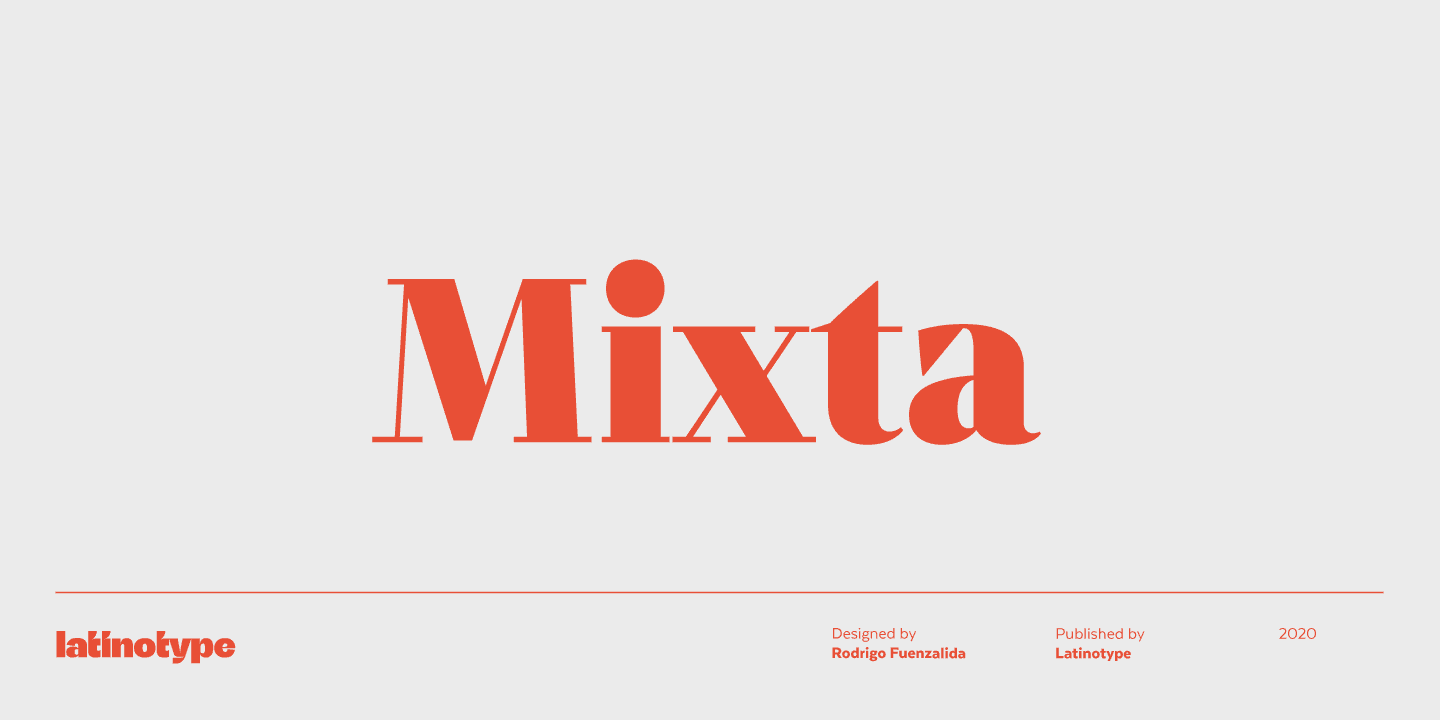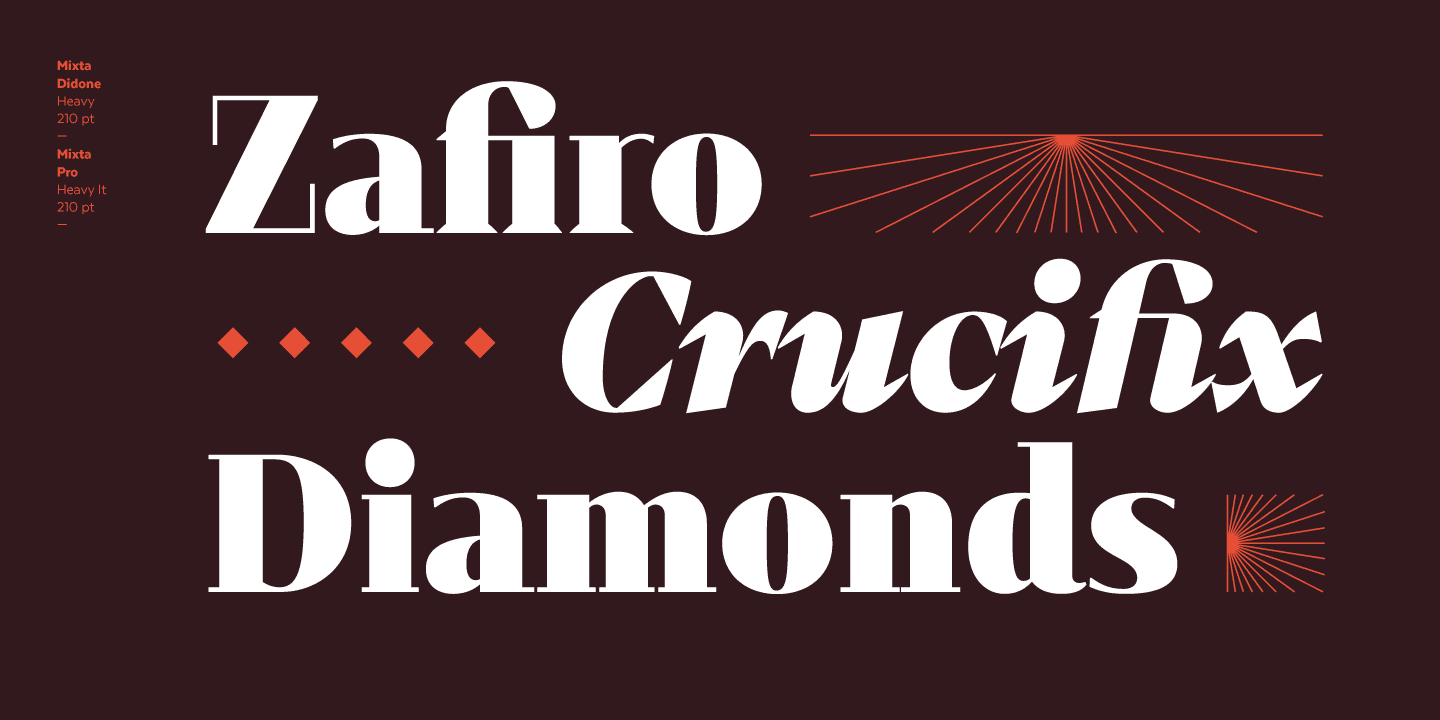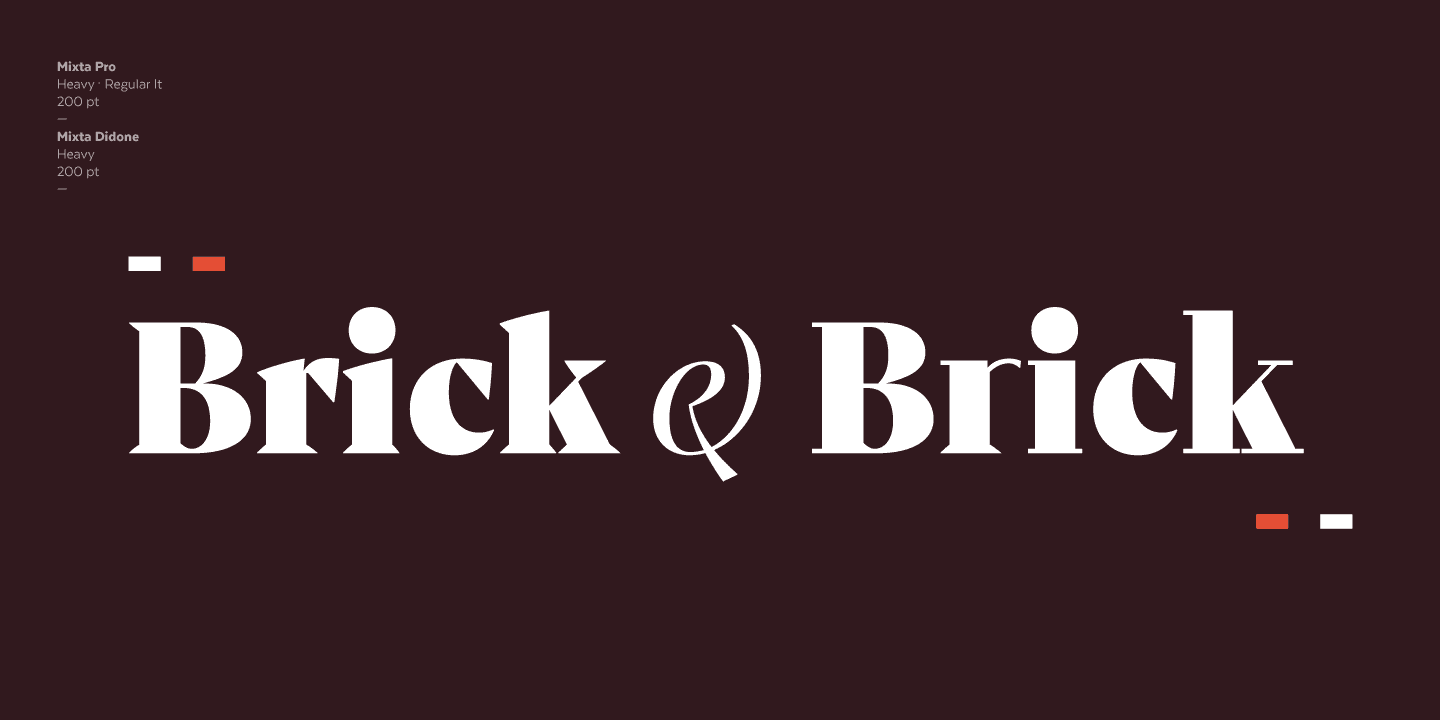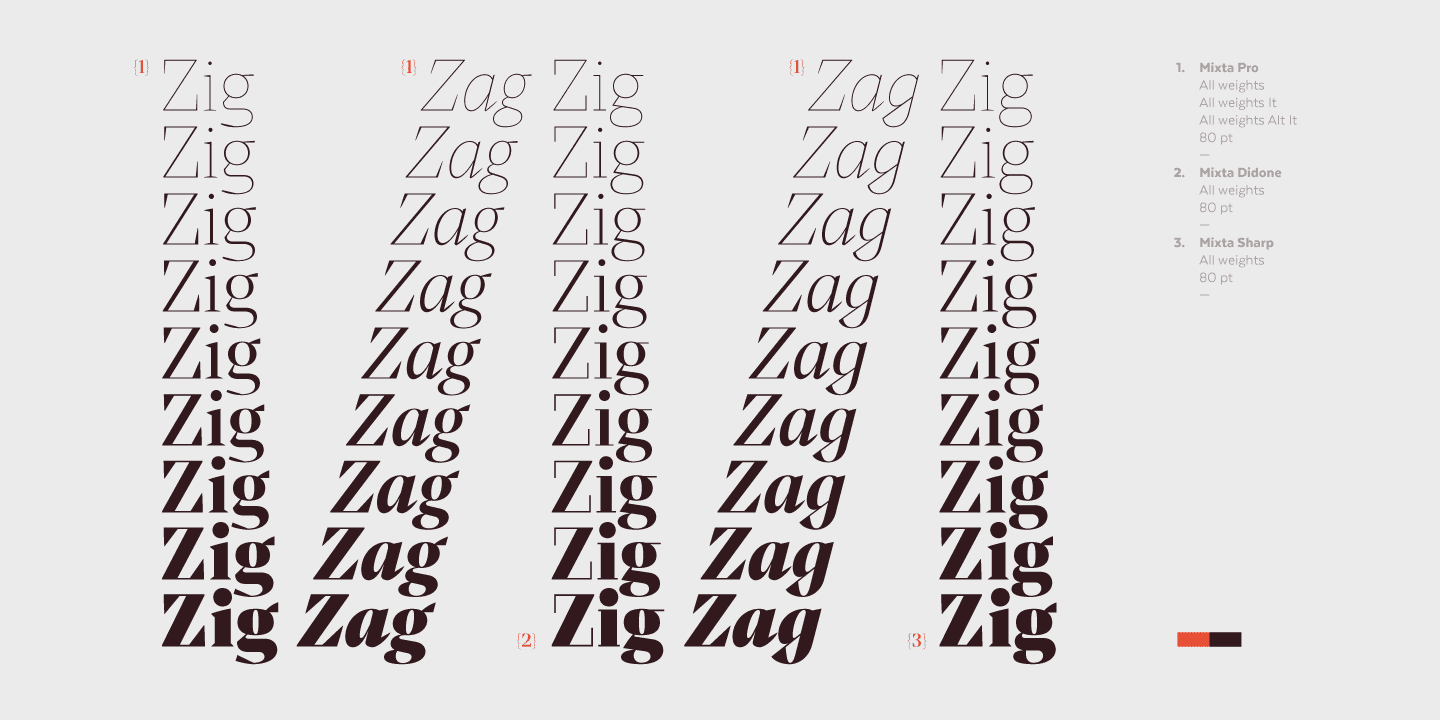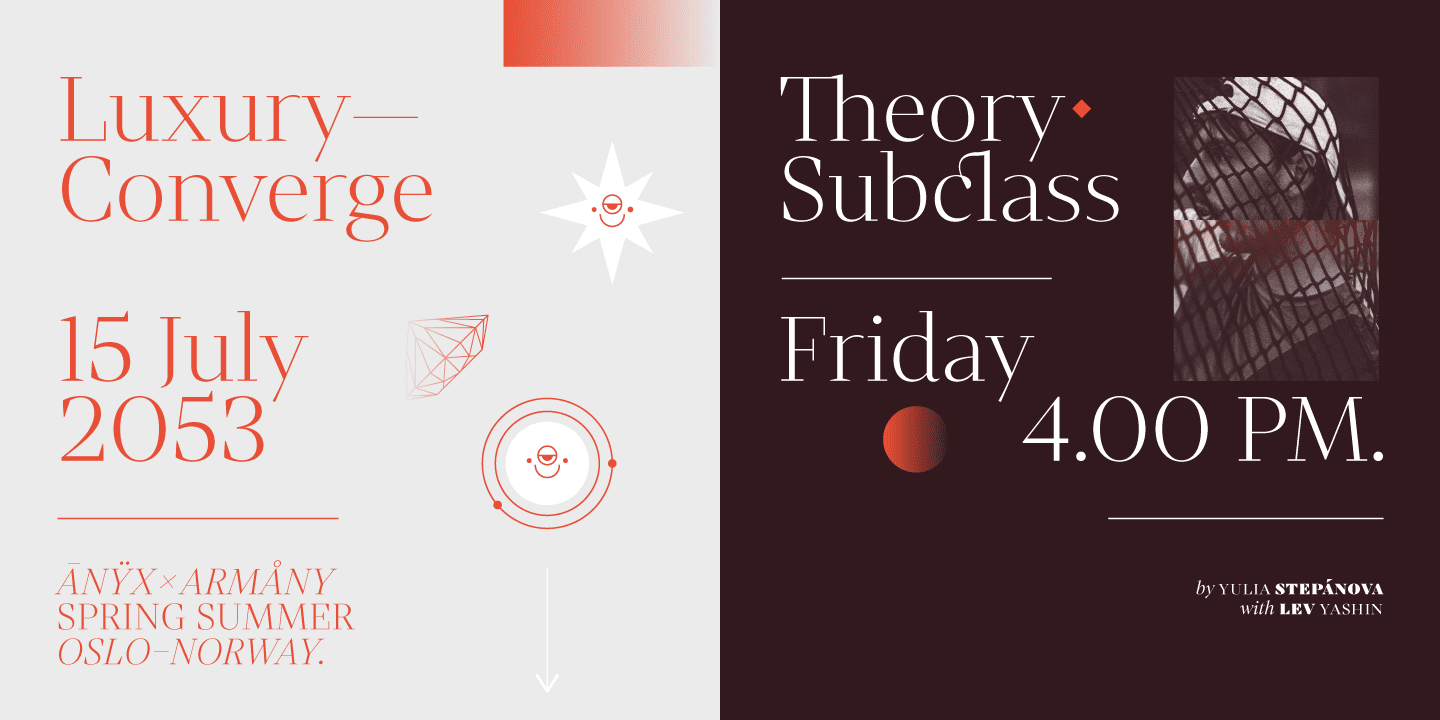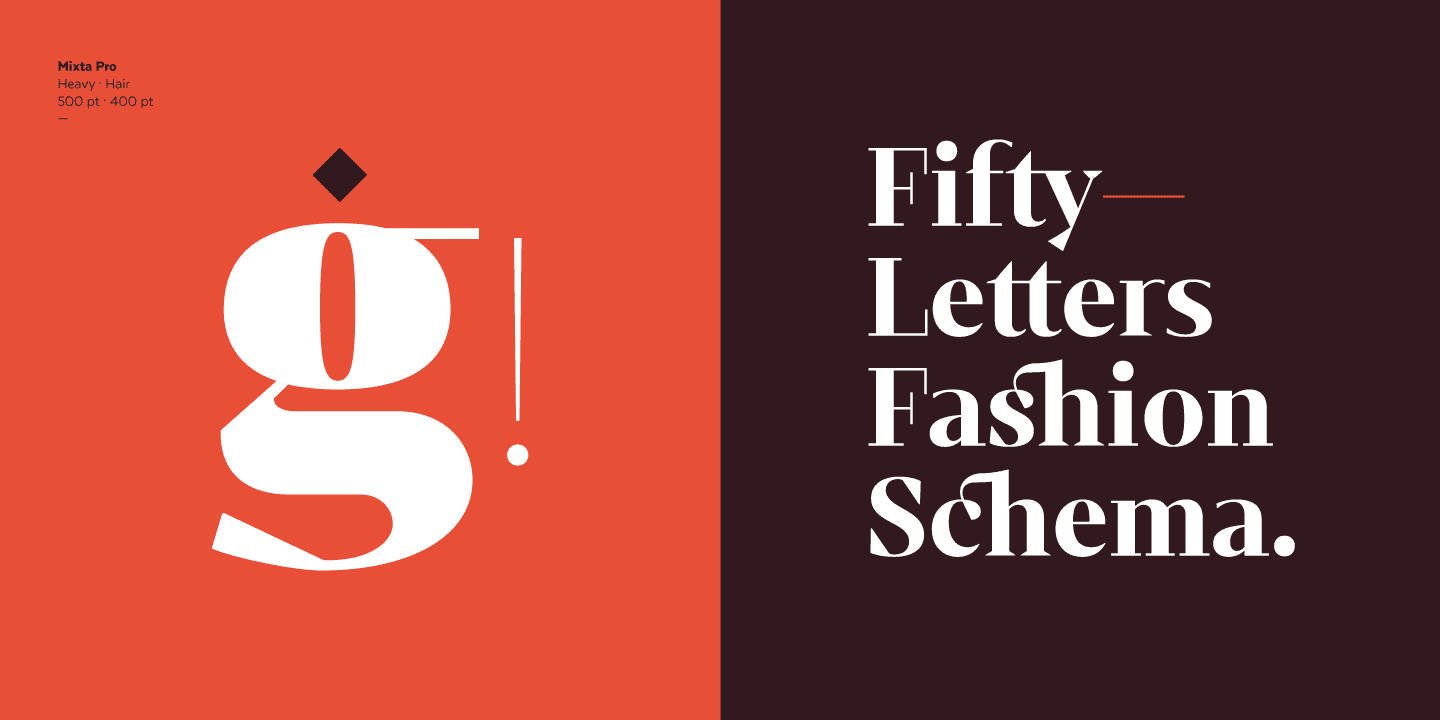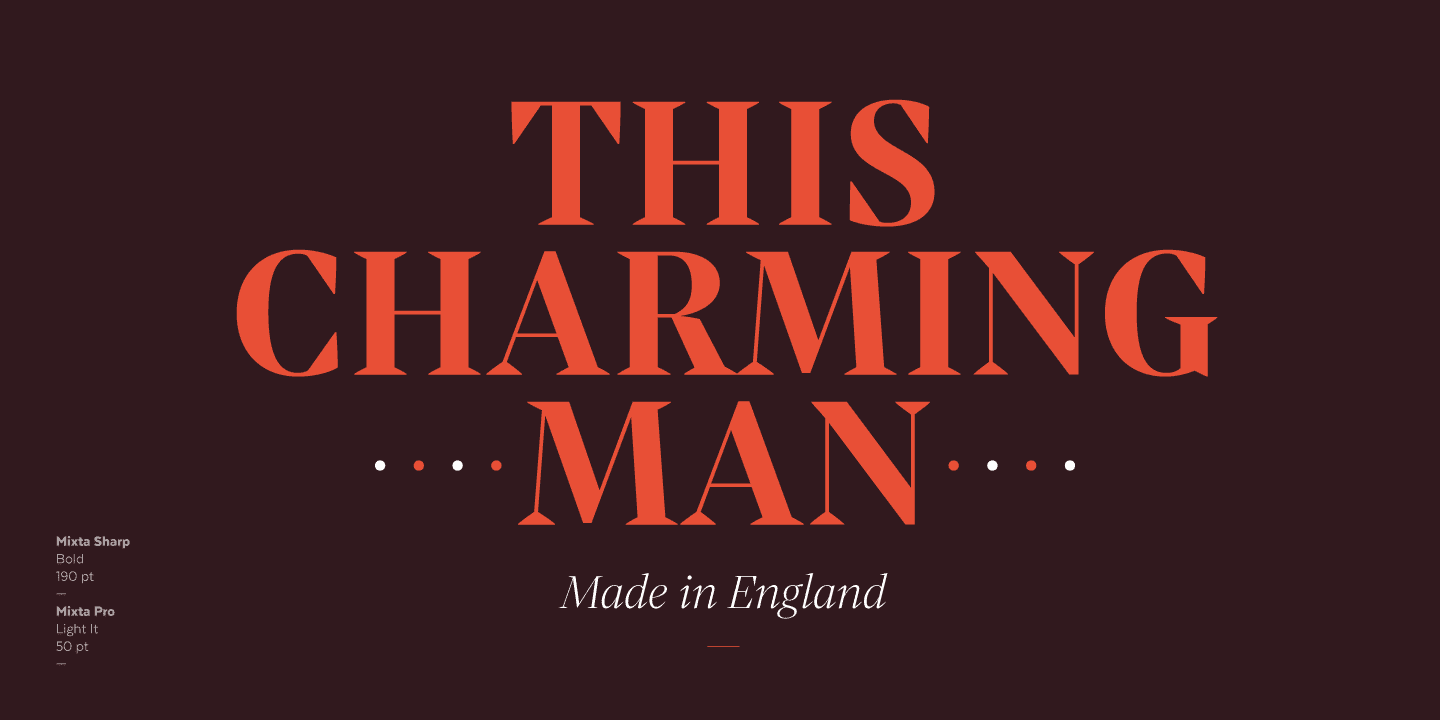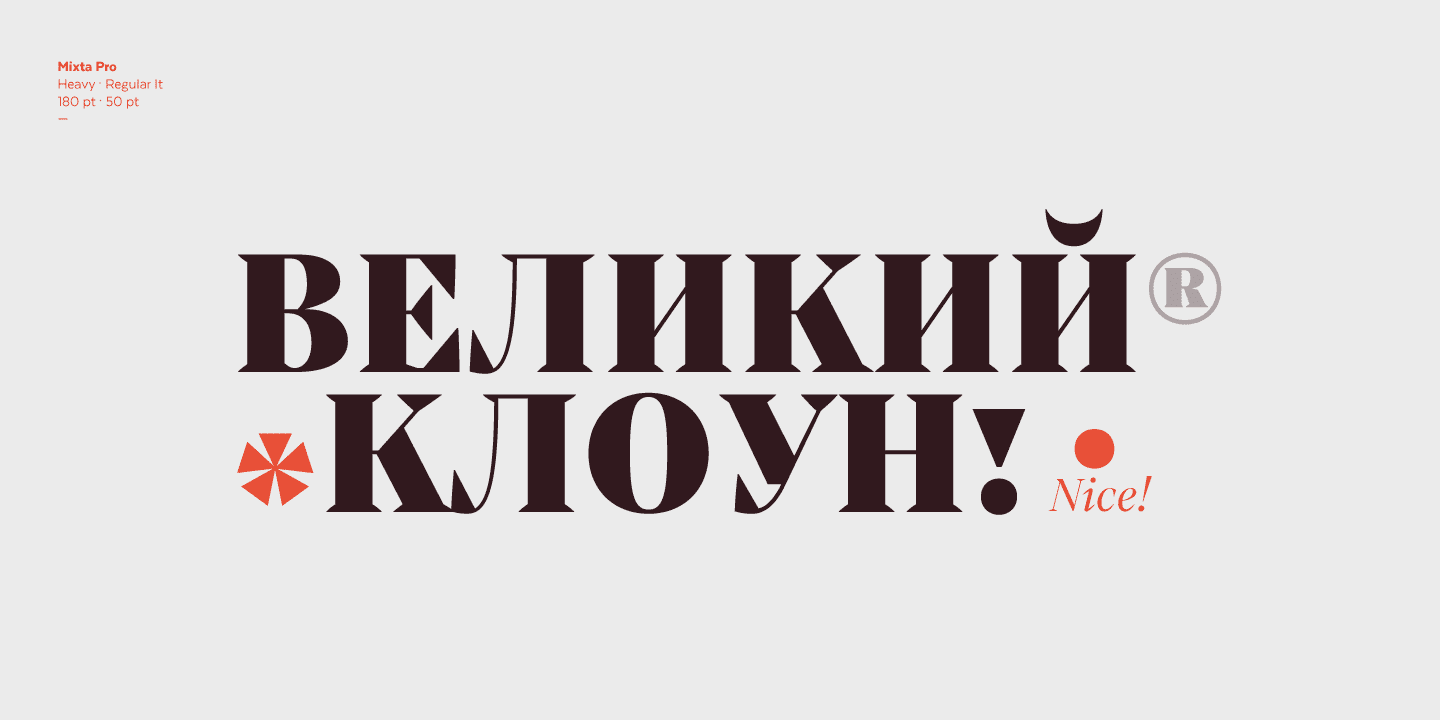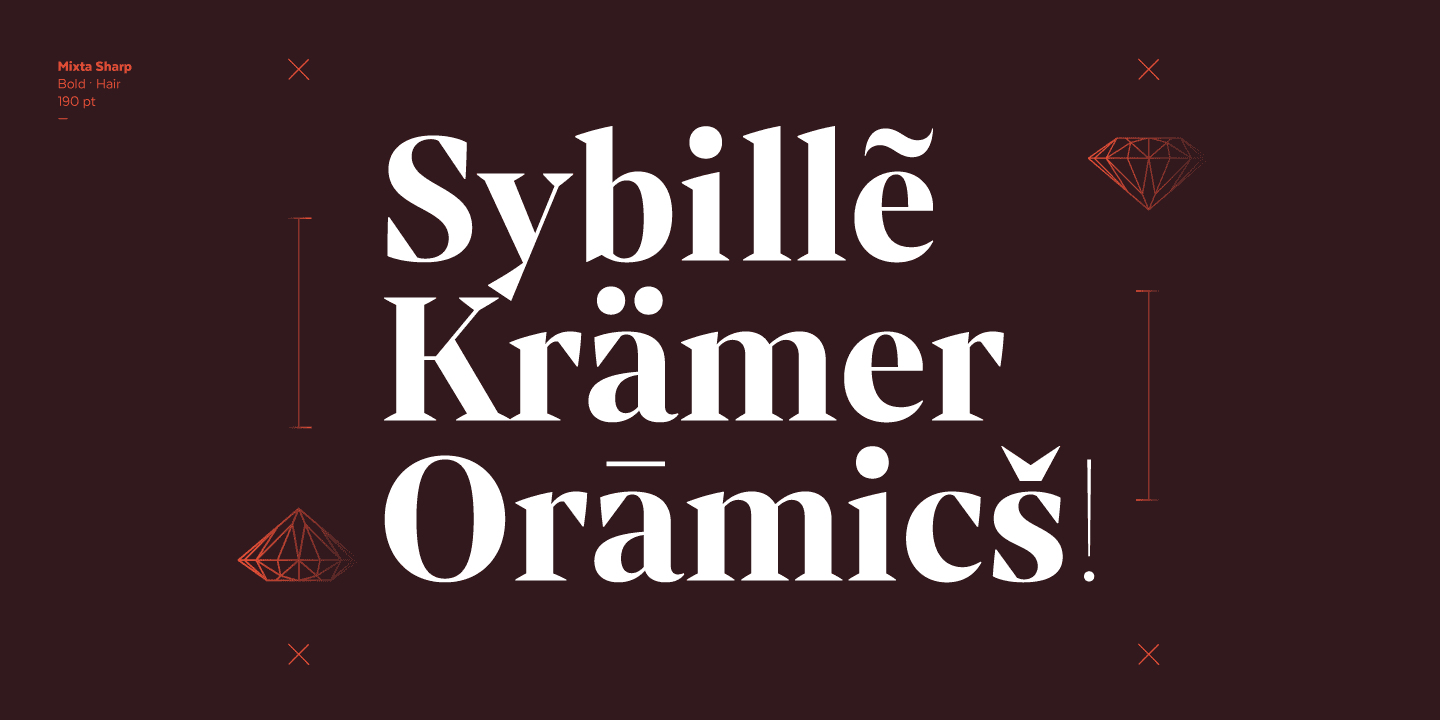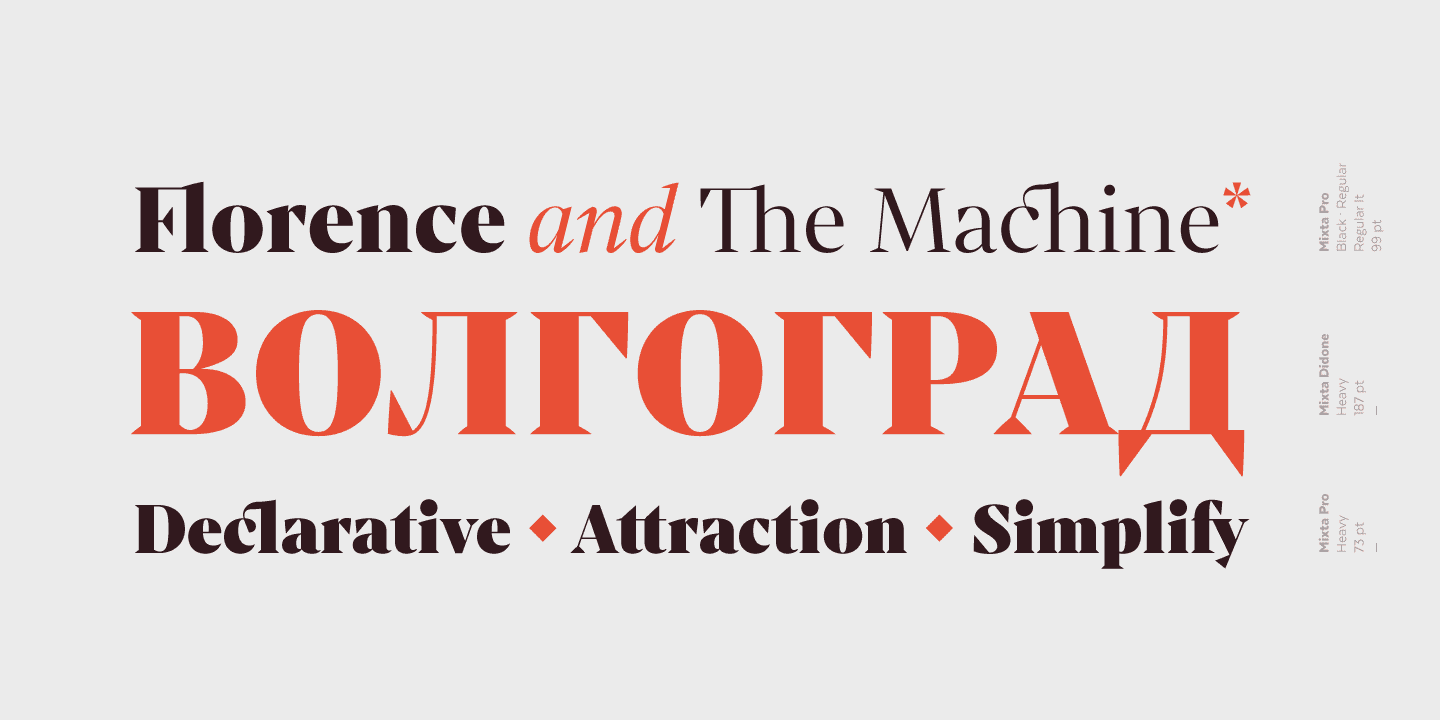
Create unique designs by combining any of the upright weights with matching italics. Mixta includes Cyrillic support, small caps, different types of figures and a wide variety of alternates.
Mixta comes with a set of 1,200 characters that support over 200 Latin-based languages. This font was specially designed for branding, advertising, editorial design, and use on Tv and social media.